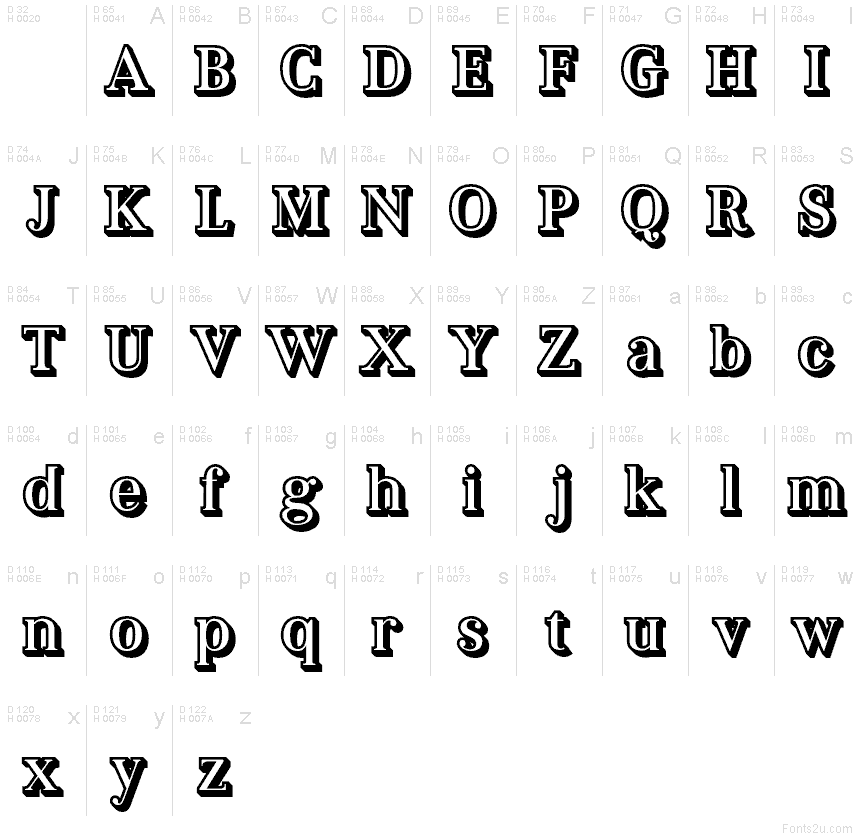
Jevale-ExtrudeRight Demo
Jevale ExtrudeRight font by Craft Supply Co. blends bold, ornate design with classic appeal and vintage influence. Its 3D serif style lends a theatrical flair to each character, resulting in a decorative display that draws immediate attention. This free font offers an identifiable and unforgettable aesthetic.
Apply Jevale ExtrudeRight to advertise books and posters, packaging designs, headlines, branding projects or apparel items. T-shirt printing, music cover design, magazine covers or sections like editorials will not be left out either!